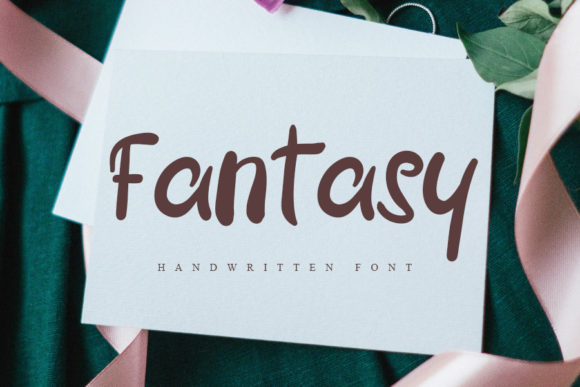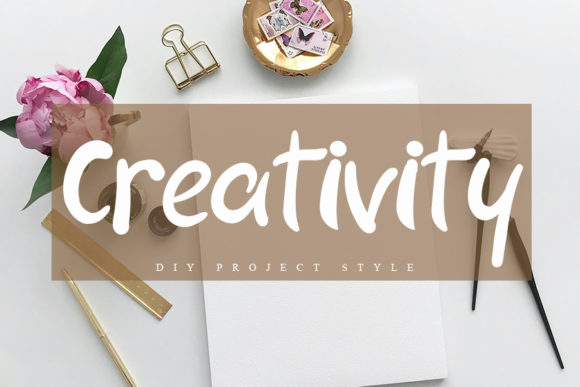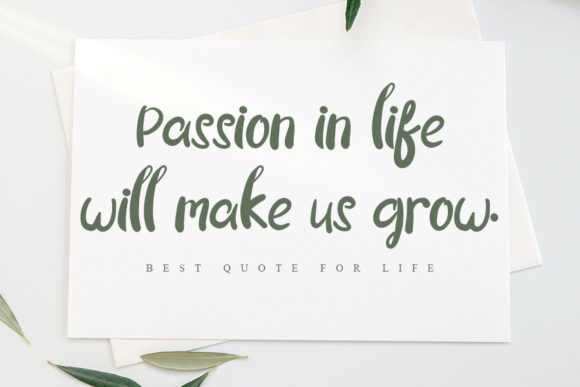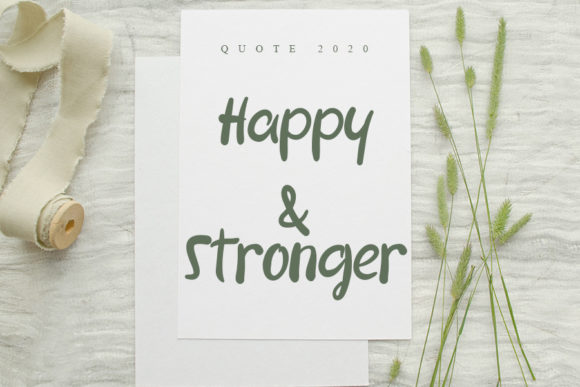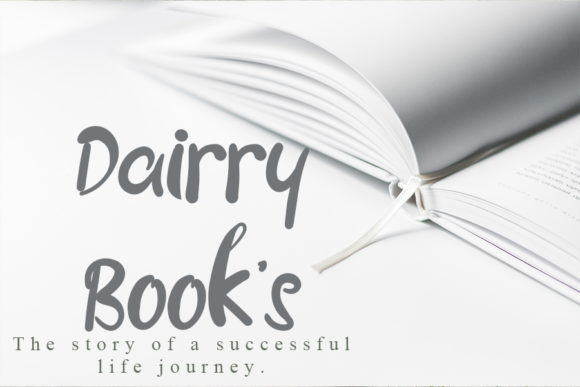
Fantasy Font
About Fantasy Font
Fantasy font, with its delicate and elegant handwritten style, has the power to infuse an air of enchantment into any creative endeavor. Each carefully crafted letter exudes a sense of timeless beauty, making this font an absolute masterpiece in the realm of typography.
What sets Fantasy font apart is its impeccable balance between delicacy and sophistication. The letters flow seamlessly, adorned with graceful curves and intricate details that evoke a sense of craftsmanship reminiscent of a bygone era. This font embodies the essence of elegance, making it a perfect choice for projects that demand a touch of refinement and allure.
The versatility of Fantasy font is truly awe-inspiring. Whether you’re designing a wedding invitation, a book cover, a logo for a high-end brand, or simply adding a touch of whimsy to your personal blog, this font can effortlessly adapt to various styles and themes. Its well-rounded nature enables it to convey both a sense of playfulness and a hint of formality, depending on the context in which it’s used.
Imagine creating a fantasy novel cover with the Fantasy font, instantly transporting readers into a world of magic and wonder before they even turn the first page. Visualize a café menu adorned with its intricate letters, setting the perfect mood for a cozy and luxurious dining experience. The possibilities are as vast as your imagination, and Fantasy font is there to help bring your creative visions to life.
Designers and creators alike are sure to fall in love with the captivating charm of Fantasy font. Its ability to seamlessly merge modern design demands with timeless elegance is nothing short of remarkable. This font isn’t just a typographic tool; it’s an experience that invites you to explore the realms of creativity with a touch of sophistication.
In conclusion, Fantasy font stands as a testament to the artistry that can be achieved through typography. Its delicate yet impactful presence, its versatility, and its timeless allure make it a must-have for anyone seeking to add a touch of magic to their designs. Embrace the elegance, embrace the possibilities, and let Fantasy font weave its enchanting spell into your creative journey.